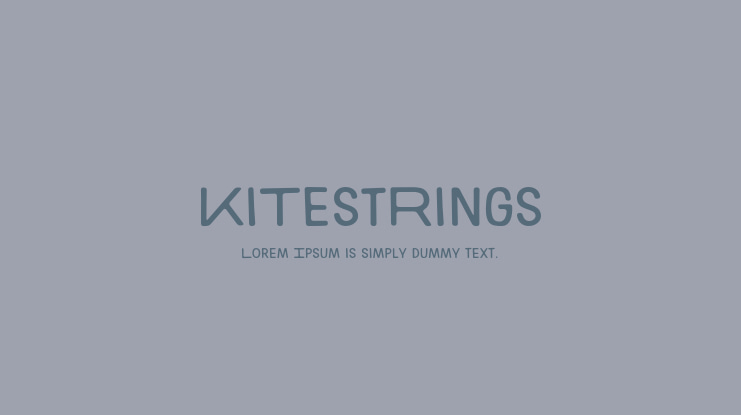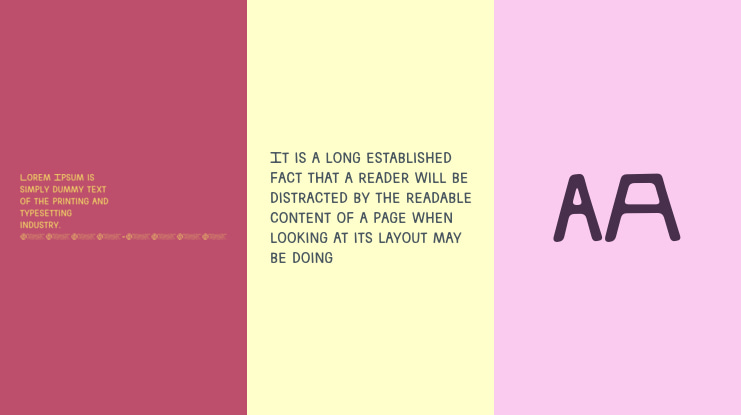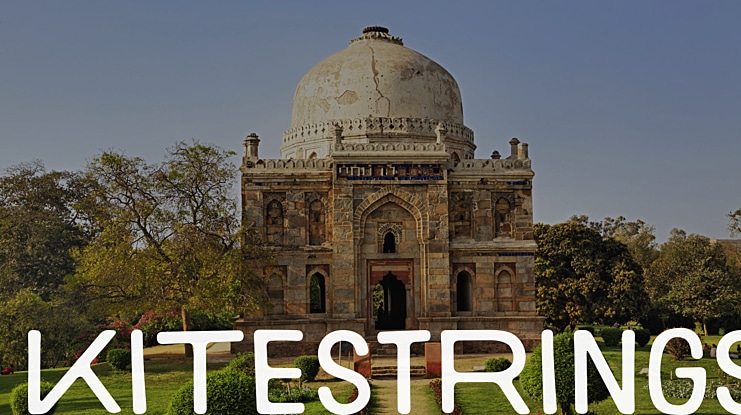
KiTestRings Font Family
Kitestrings is a cozy all-caps sans font family with elongated uppercase letters so you can mix and match as you please to create text with that custom, variable width style.